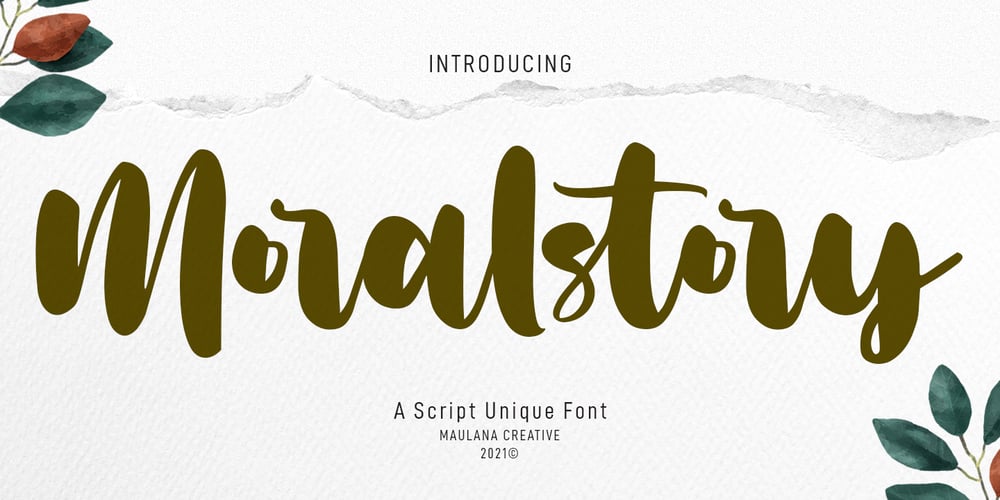
Moralstory Font Family was designed by Gilang Maulana and published by Maulana Creative. Moralstory contains 1 styles and family package options. Moralstory is a Handwritten Script font. With High Contrast stroke, fun character with a bit of ligatures and lowercase alternatives. To give you an extra creative work. Moralstory font support multilingual more than 100+ language. This font is good for logo design, Social media, Movie Titles, Books Titles, a short text even a long text letter and good for your secondary text font with sans or serif. Make a stunning work with Moralstory font.Cheers, MaulanaCreative